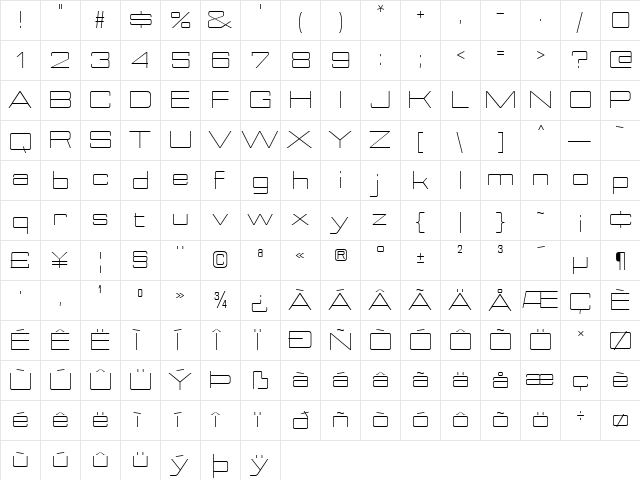
Nesobrite Expanded Light
Design Context for Nesobrite Typeface
Nesobrite takes a measured approach to typography — its balanced proportions and neutral character make it a reliable workhorse for both digital and print work. The delicate stroke weight brings airiness and refinement to layouts.